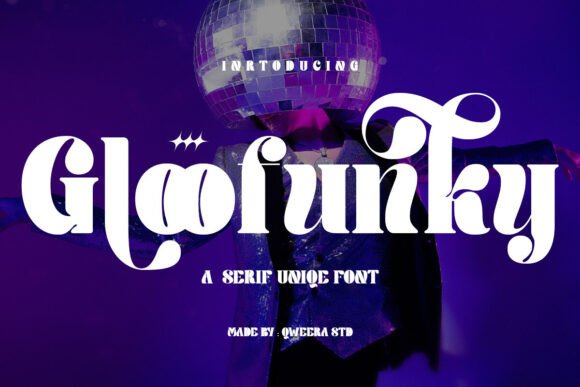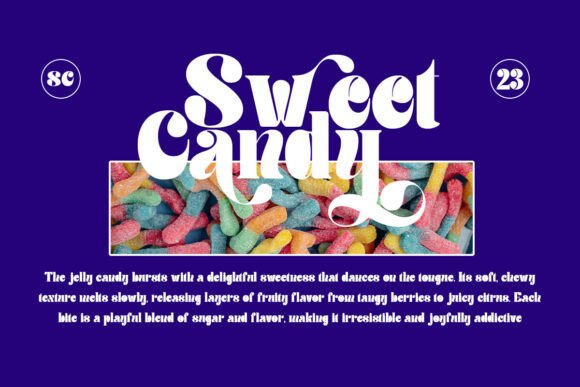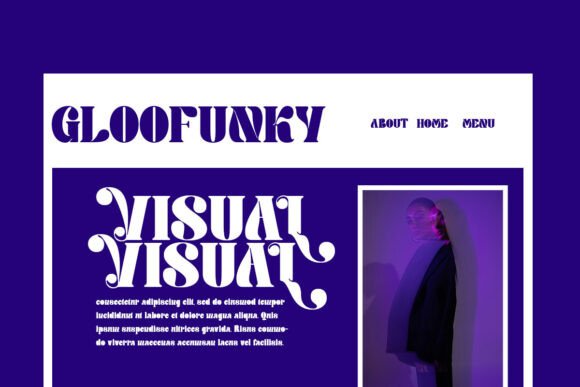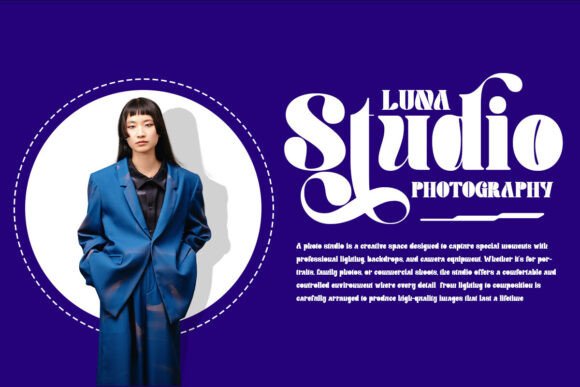
Gloofunky Font: A Unique Display Serif for Standout Branding & Logos
About the Gloofunky Font
The Gloofunky Font offers a perfect balance of form and function for your design needs. Gloofunky – Elegant Unique Display Serif Font for Standout Branding
Gloofunky is a captivating display serif that masterfully blends unconventional elegance with artistic flair. Featuring both regular and italic versions with expressive stylistic alternates and ligatures, this typeface is expertly crafted for distinctive branding, memorable logos, eye-catching packaging, and editorial designs that demand attention.
Where Quirky Elegance Meets Sophisticated Design
With its unique character shapes and playful yet refined aesthetic, Gloofunky delivers unparalleled versatility for brands seeking both personality and prestige. The carefully designed alternates and ligatures enable you to create truly one-of-a-kind typographic expressions.
Gloofunky Font Usage Examples
Gloofunky Font Example